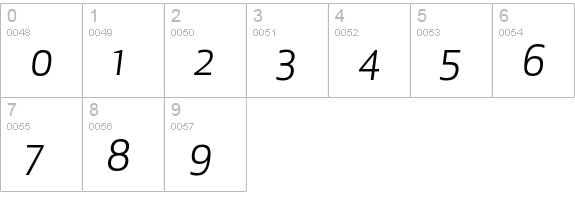
ApexNew-BookItalic Font Details
ApexNew-BookItalic is a modern and stylish typeface that exudes elegance and sophistication. Its sleek and flowing italic design adds a touch of class to any project, making it perfect for a wide range of applications, from branding to editorial design. The font features a harmonious balance between traditional and contemporary elements, making it versatile and suitable for various design needs. What's even better is that ApexNew-BookItalic is available for free download at FontsMarket.com. This means you can easily access and use this stunning font in your projects without any cost. Whether you're a designer looking to elevate your work or a business owner seeking a fresh look for your branding, ApexNew-BookItalic is the perfect choice. Download it today and add a touch of sophistication to your designs!